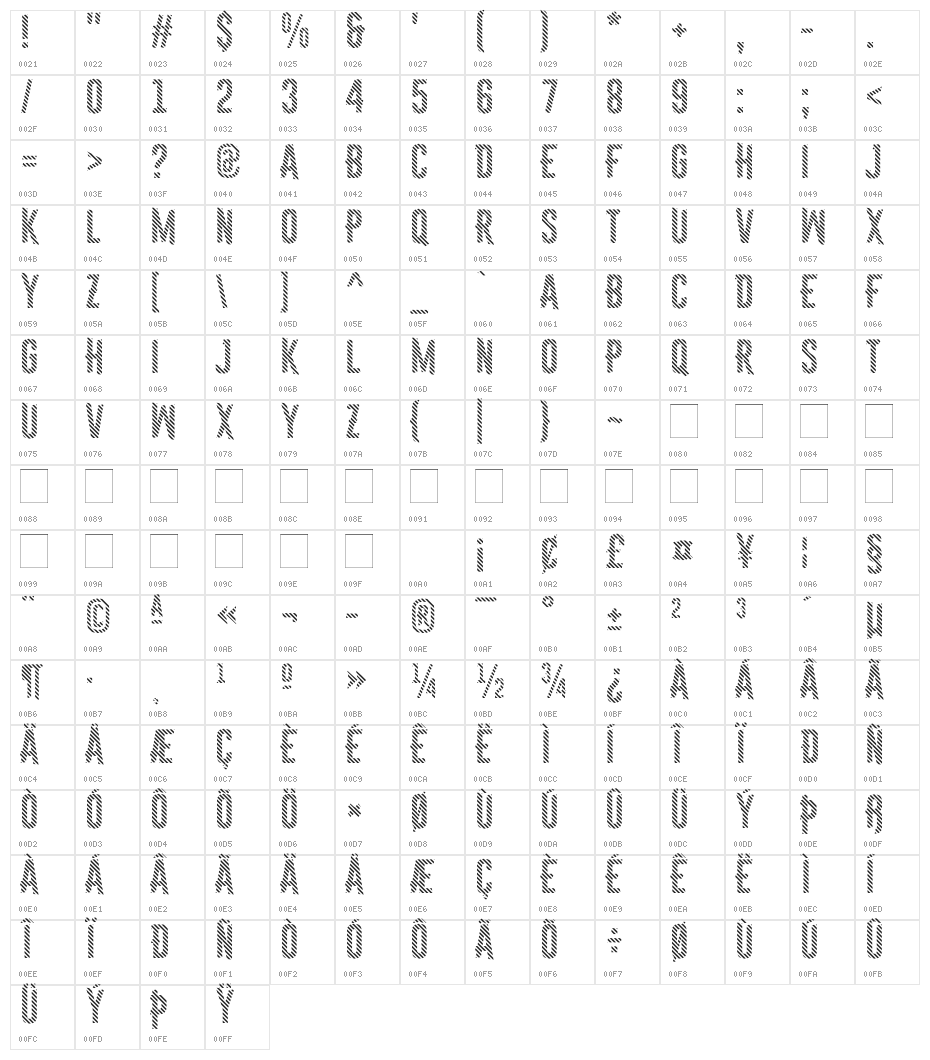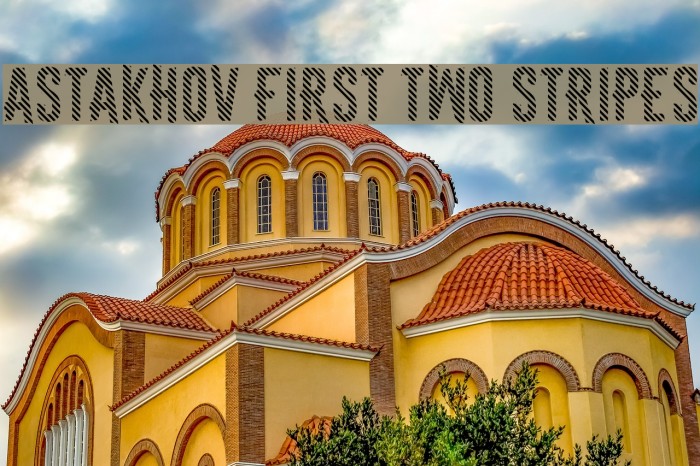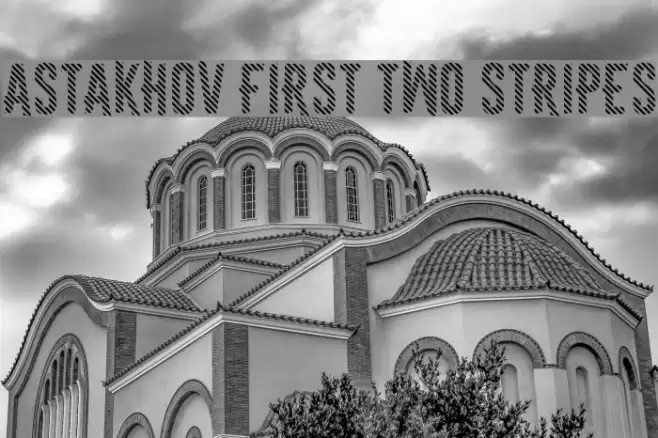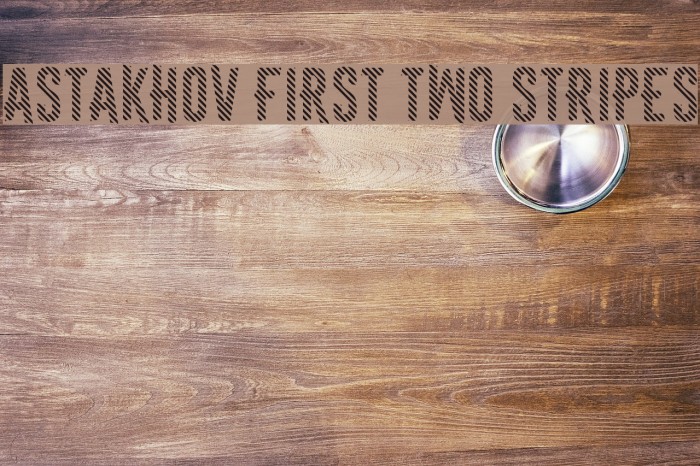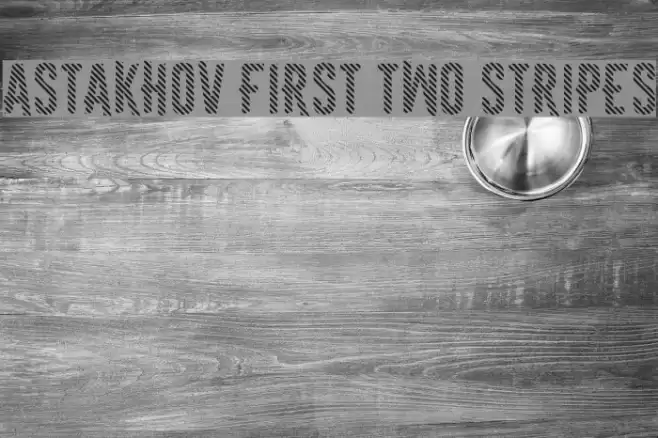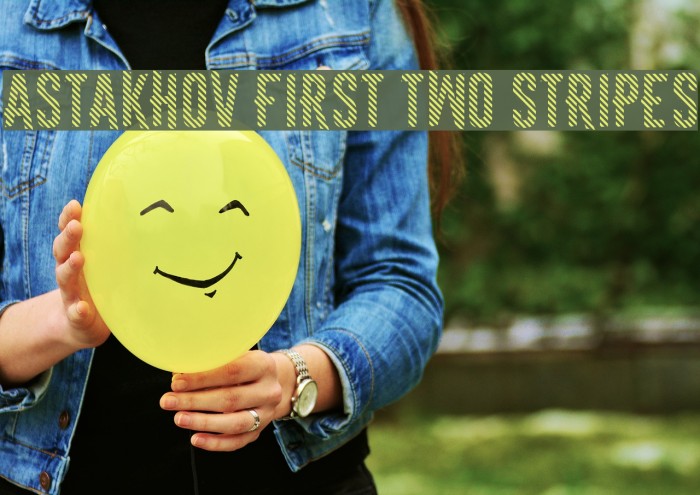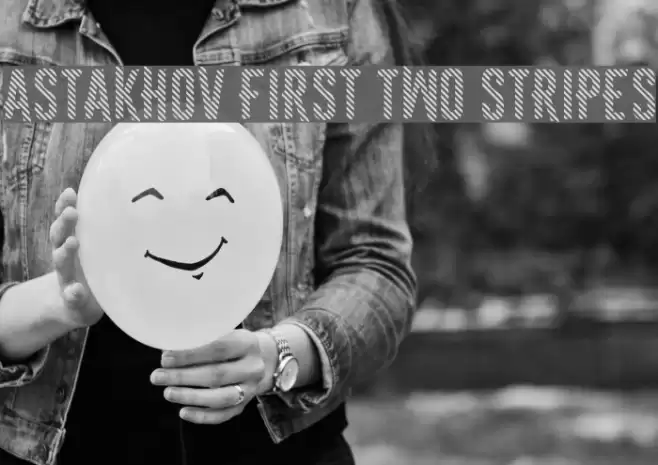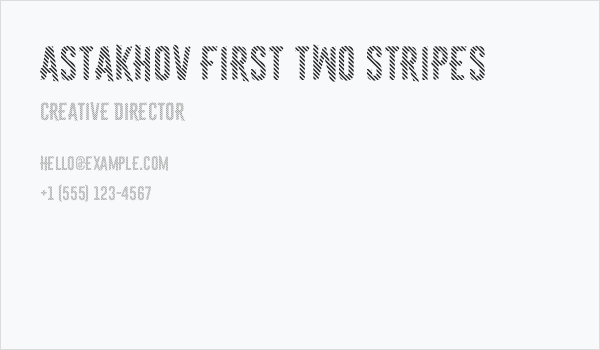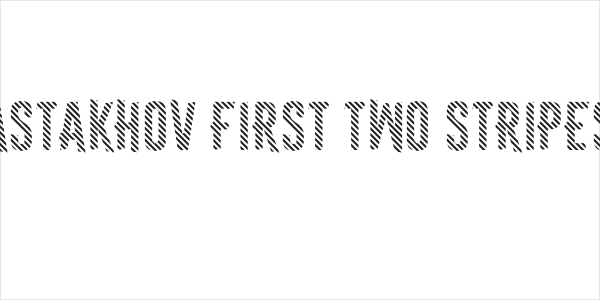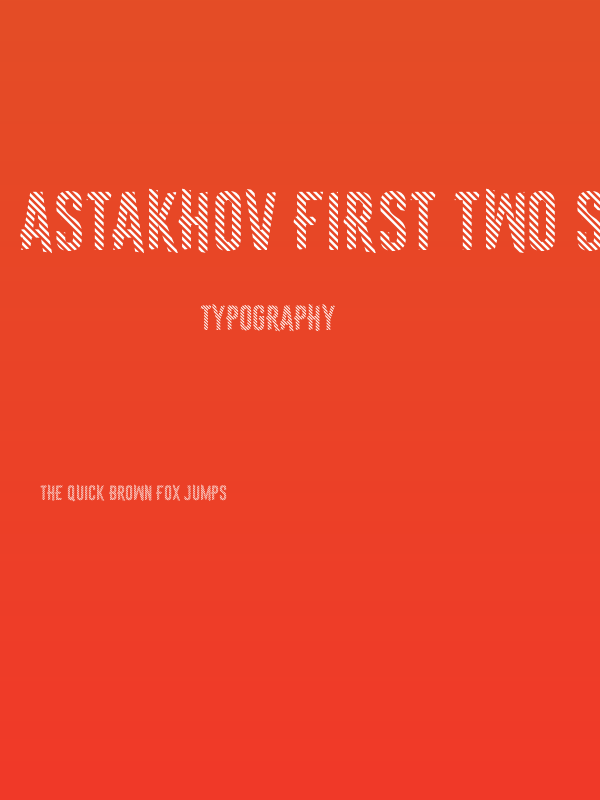
Astakhov First Two Stripes Font
Astakhov First Two Stripes Description
This font features a bold, decorative style with diagonal stripes running through each character, creating a dynamic and eye-catching effect. The uppercase letters are uniform in height and width, maintaining a strong presence. The numbers and special characters follow the same striped pattern, ensuring consistency across all elements. The font's design is modern and playful, making it suitable for projects that require a bold statement. The stripes add a sense of movement and energy, making it ideal for creative and contemporary designs.
| Proposed Projects | Ideal for posters, branding, packaging, and any project needing a bold, modern touch. |